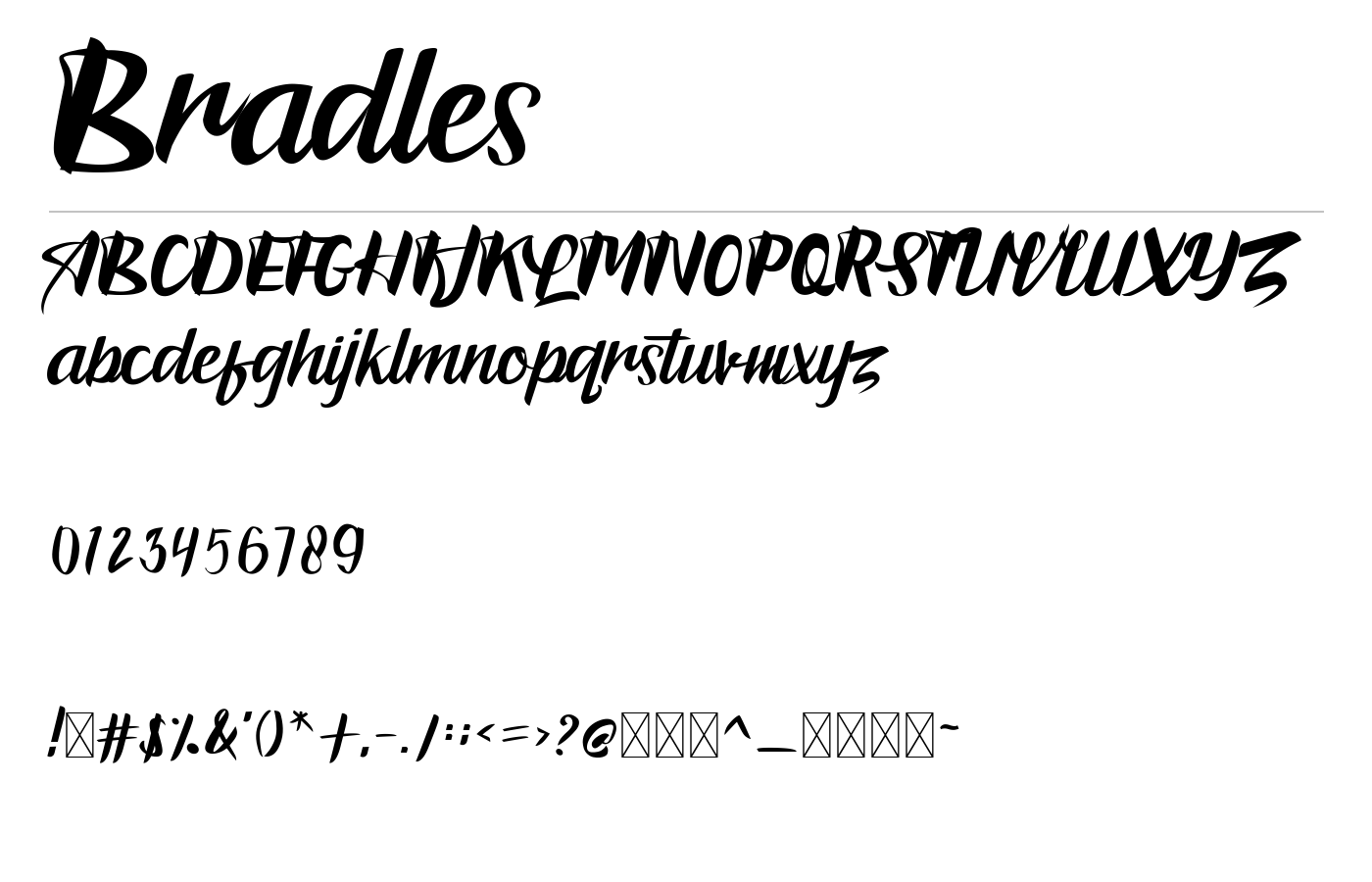
Bradles is a stylish and expressive script font characterized by its bold, dynamic strokes and a lively, hand-painted feel. With its flowing letterforms and high contrast between thick and thin lines, it conveys a modern yet elegant personality, making it ideal for eye-catching logos, branding, and creative headlines. This font works well when you want to add a sense of energy and sophistication to fashion, beauty, or artistic designs.
Bradles Font
About Bradles Font
| Font family | Bradles Font |
| Designer | Agni Ardi Rein Prasetyo |